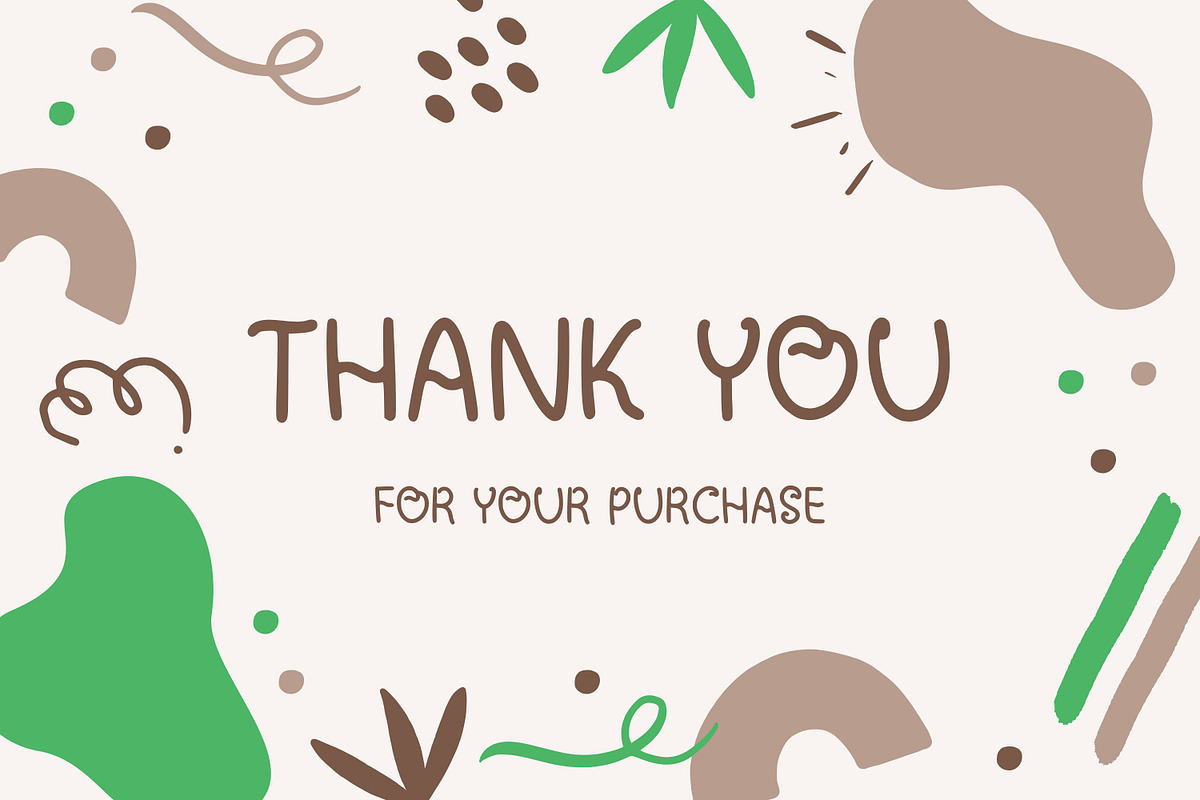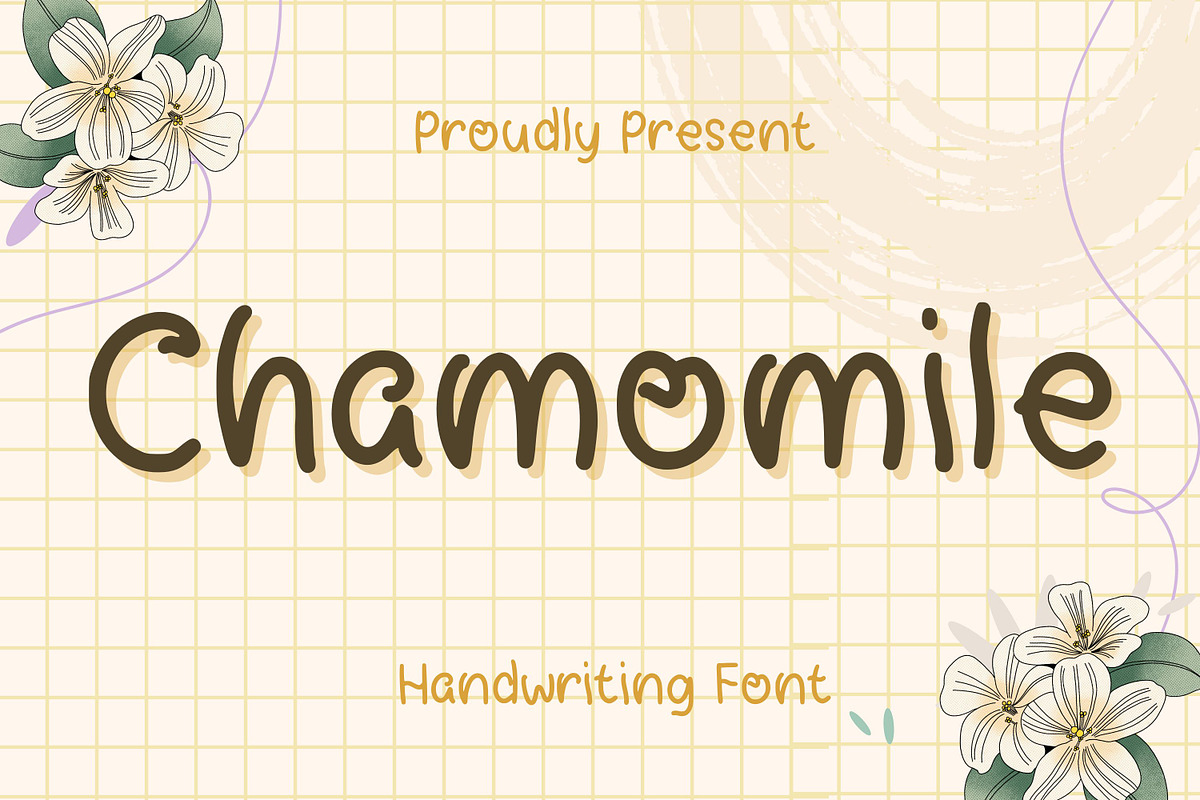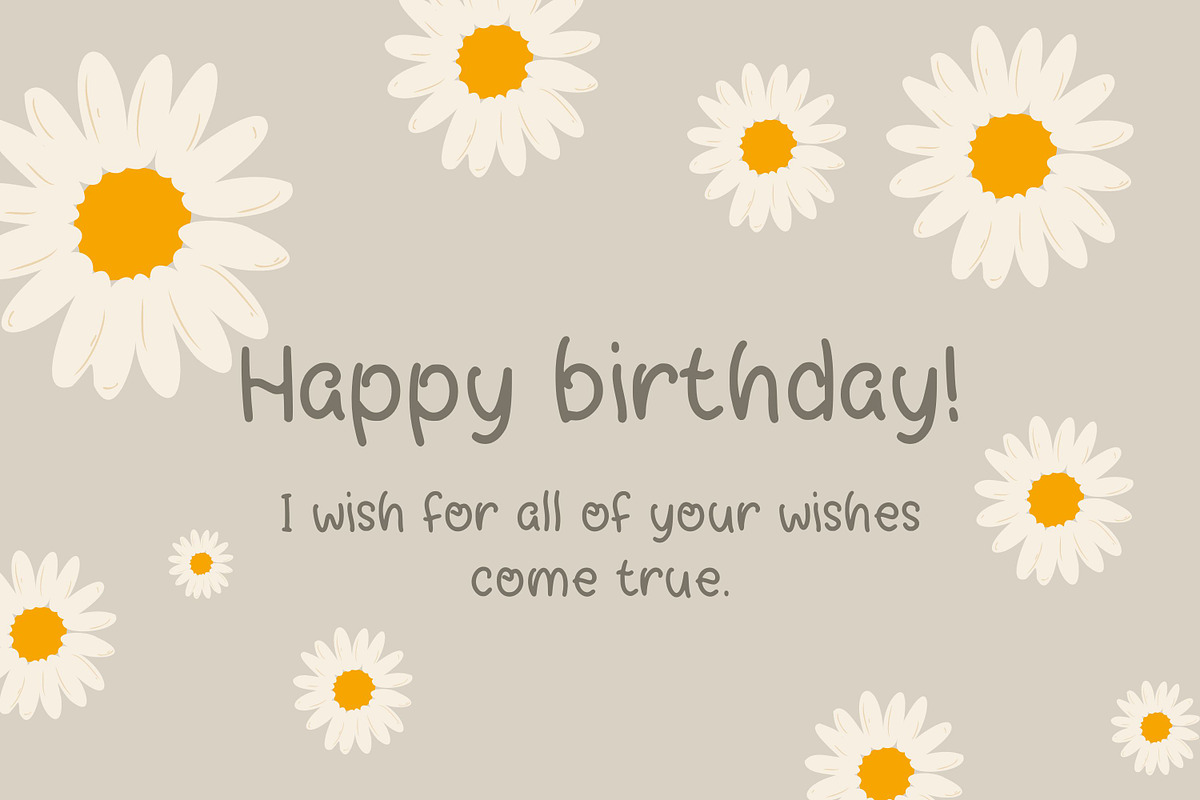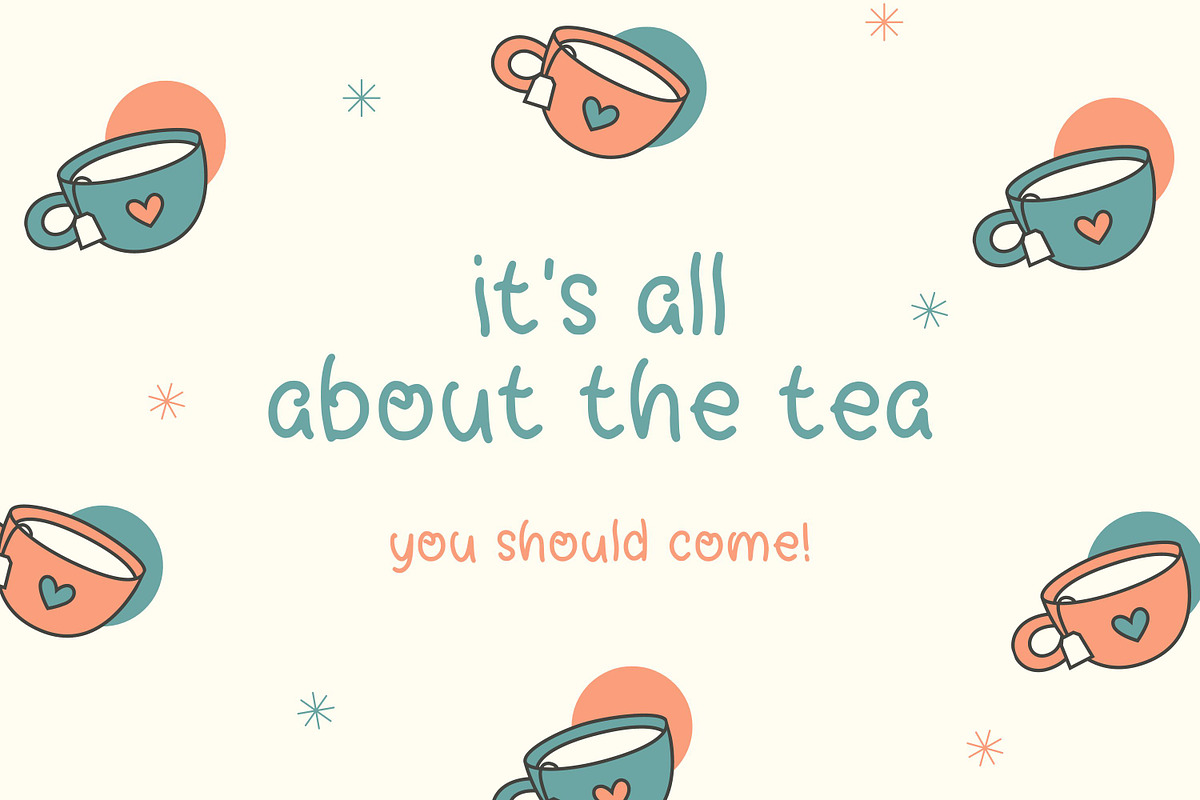
Chamomile
The Chamomile Handwriting Font embodies a charming and elegant script style, crafting, handwritten notes. Each character in the Chamomile font is carefully crafted to ensure readability while maintaining its unique handwritten aesthetic. This versatility makes it perfect for a wide range of applications, from wedding invitations and greeting cards to branding materials and book covers. The Chamomile Handwriting Font seamlessly combines the nostalgic beauty of traditional handwriting with the practical needs of modern design, offering designers a tool to add a personal, artisanal touch to their projects.